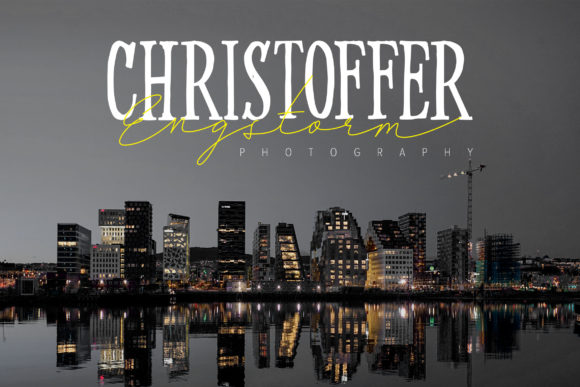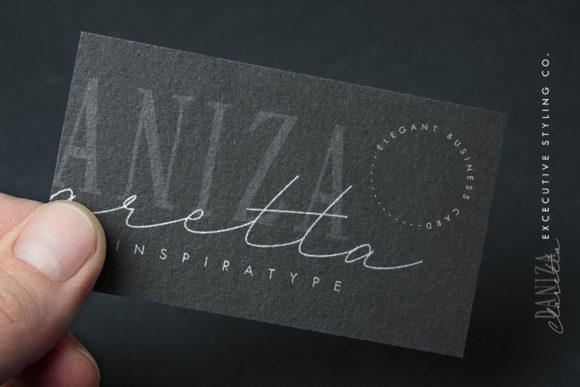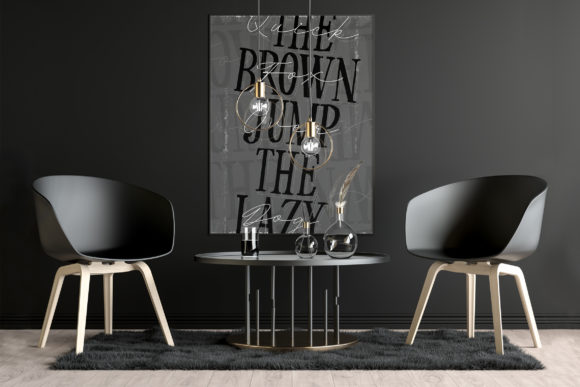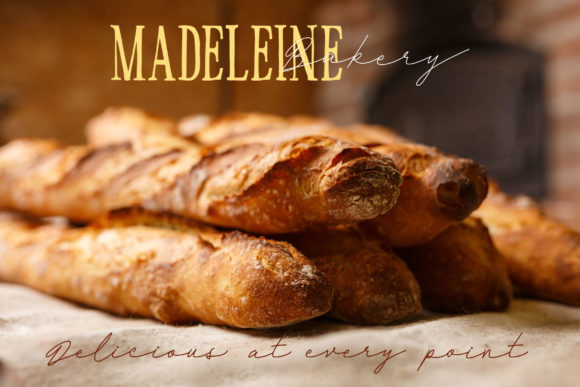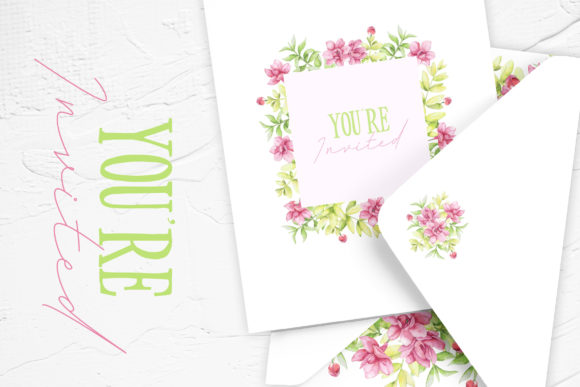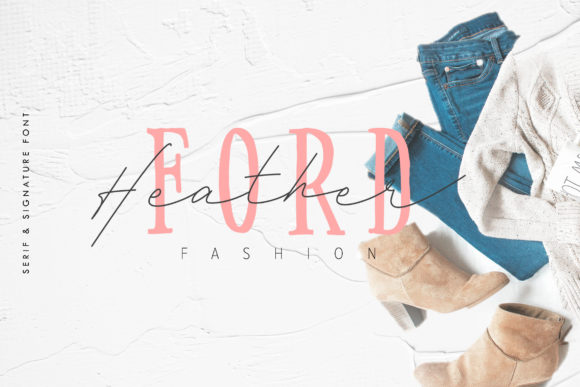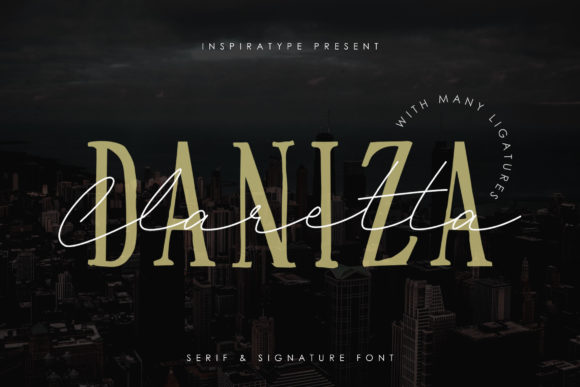
Introducing Daniza Claretta Font: A Tasteful Duo for Creative Expression
In the world of typography, finding the perfect font that combines elegance with versatility can be a daunting task. However, for designers, crafters, and creatives looking for a duo that can elevate their projects, Daniza Claretta Font stands out as an exceptional choice. This tasteful duo font perfectly merges a strong serif with a gorgeous script, offering a wide range of creative possibilities. From greeting cards to stationery, and beyond, Daniza Claretta Font is your gateway to creating visually stunning and unique designs.
The Perfect Blend of Strength and Elegance
Daniza Claretta Font is characterized by its distinctive combination of a robust serif font and a beautiful script. The serif component provides a solid foundation, exuding professionalism and reliability, while the script element adds a touch of elegance and fluidity. This blend allows designers to create a visual hierarchy in their work, emphasizing certain parts while maintaining a cohesive look throughout. Whether you’re designing wedding invitations, crafting personalized gifts, or creating engaging content for your blog or social media, this duo font offers the flexibility to adapt to any theme or style.
The versatility of Daniza Claretta Font is one of its most compelling features. It can be seamlessly integrated into various projects, including:
- Greeting Cards: Create heartfelt and visually appealing greeting cards for any occasion.
- Stationery: Elevate your stationery designs with a professional yet personal touch.
- Branding: Use Daniza Claretta for logos, packaging, and marketing materials to give your brand a distinctive look.
- Web Design: Enhance your website’s aesthetic with this beautiful font, improving user experience and engagement.
The only limit to what you can achieve with Daniza Claretta Font is your imagination. Its adaptability makes it a valuable addition to any designer’s toolkit.
Special Features for Enhanced Creativity
What sets Daniza Claretta Font apart is its wealth of special features, designed to enhance your creative output. These include:
- Alternate Glyphs: Offers variations of letters and symbols, allowing for further customization of your designs.
- Ligatures: Combines specific letter pairs into a single glyph, adding a natural flow to your text.
- Swashes: Elegant flourishes that can be used to adorn your text, adding a decorative touch.
These features not only make your designs more visually appealing but also give you the flexibility to tailor your typography to the specific needs of your project.
Daniza Claretta Font is a powerful tool for designers and crafters seeking to infuse their projects with style and sophistication. Its unique combination of a strong serif and a gorgeous script, along with its extensive features and PUA encoding, makes it an excellent choice for a wide array of applications. Whether you’re creating something for personal use or working on a professional project, Daniza Claretta Font offers the versatility and creative freedom to bring your vision to life. Explore the possibilities with Daniza Claretta Font today and discover how it can elevate your designs to new heights.